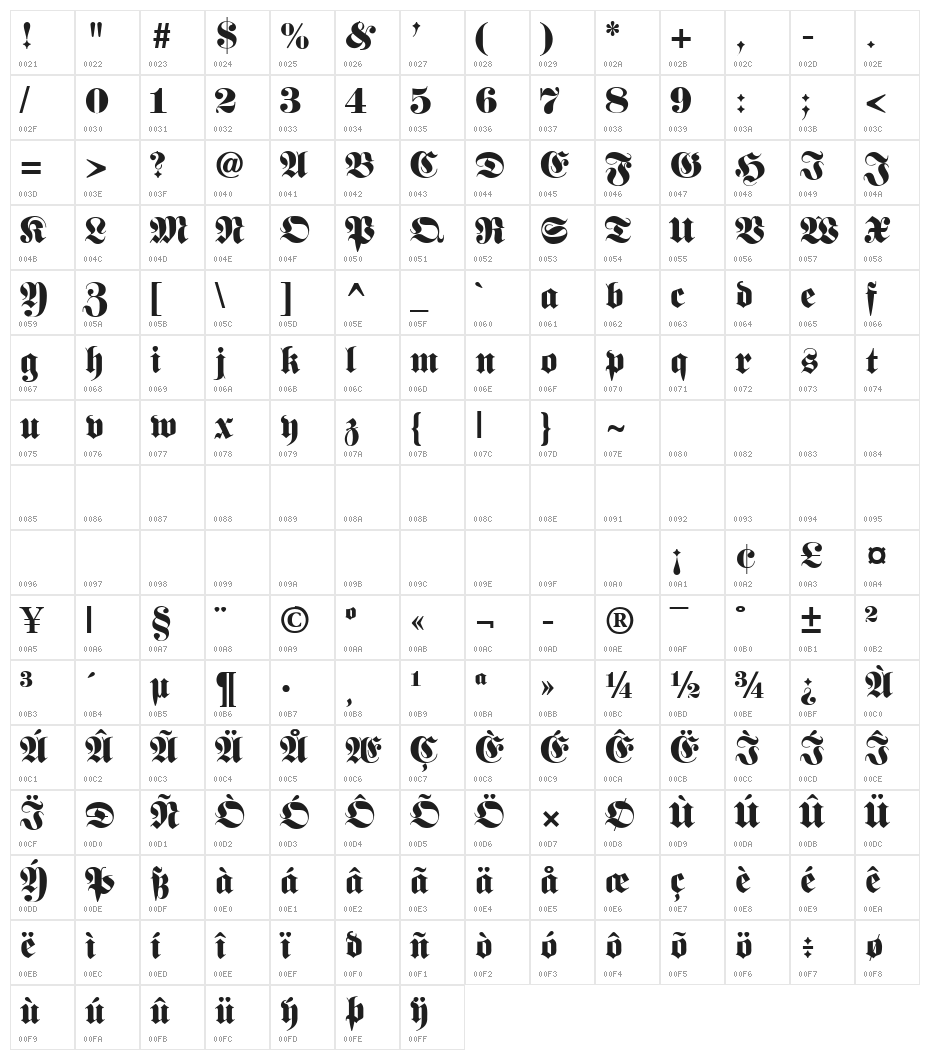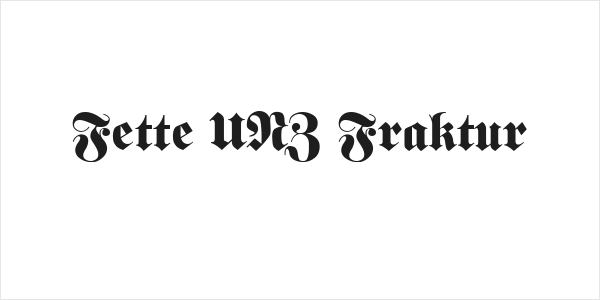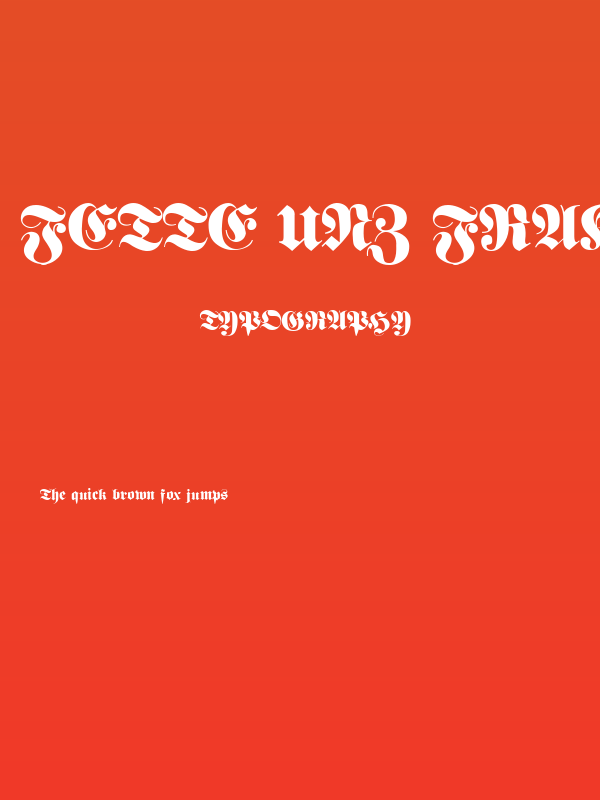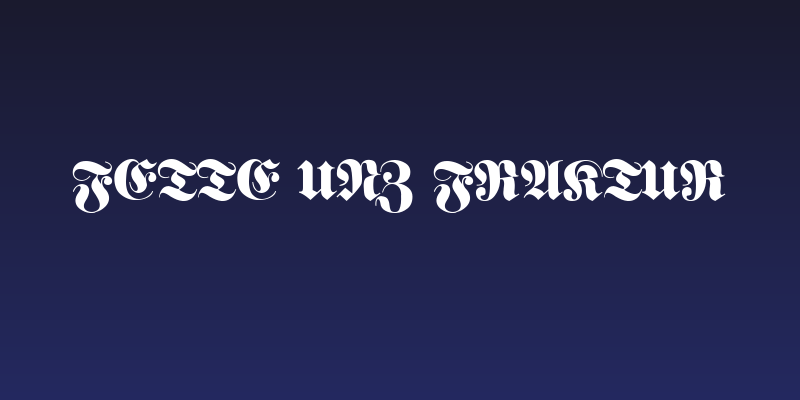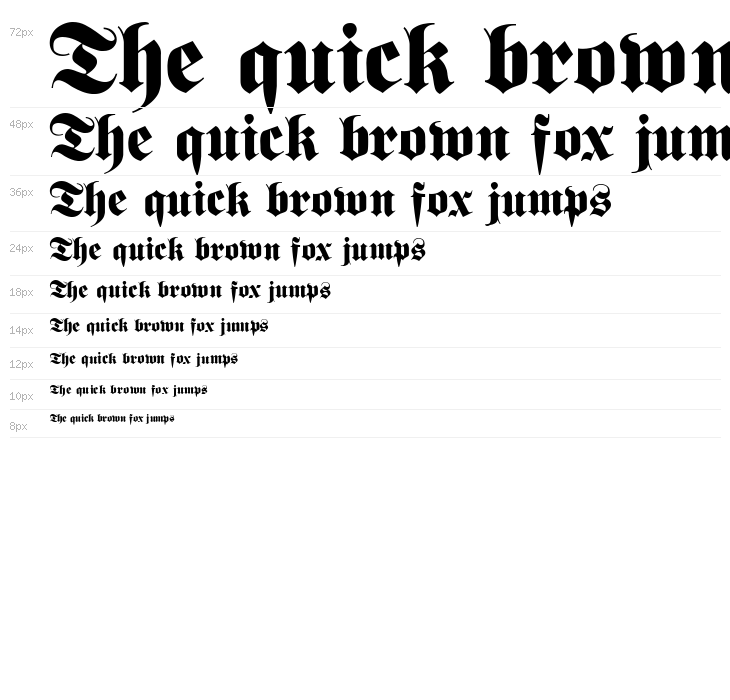
Fette UNZ Fraktur Font
Fette UNZ Fraktur Description
This font is a bold and striking representation of the Blackletter style, characterized by its intricate and ornate design. The uppercase letters are highly decorative, with sharp angles and dramatic flourishes that evoke a sense of historical elegance. The lowercase letters maintain a consistent weight, offering a cohesive look that complements the uppercase set. Numbers and special characters are equally elaborate, featuring unique curves and lines that enhance the font's overall aesthetic. This typeface is perfect for projects that require a touch of tradition and sophistication, making it ideal for formal invitations, certificates, or branding that seeks to convey a sense of heritage and authority.